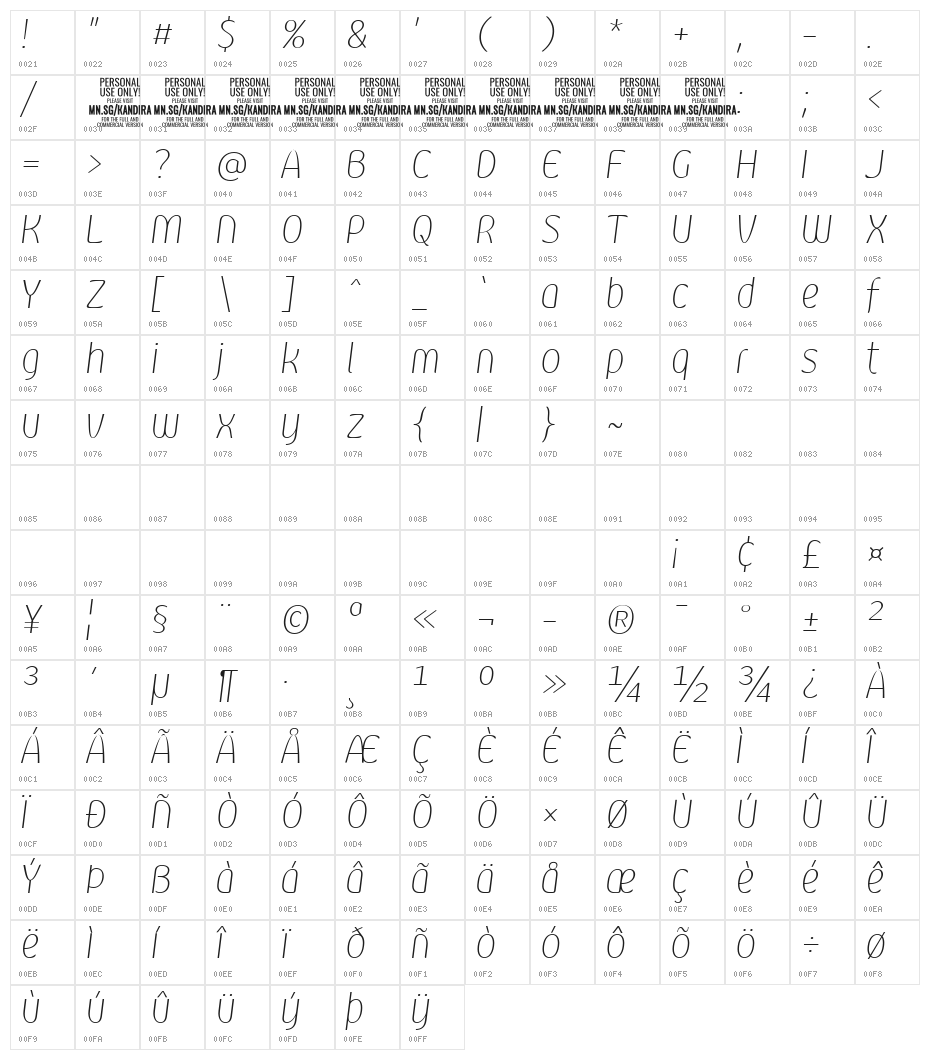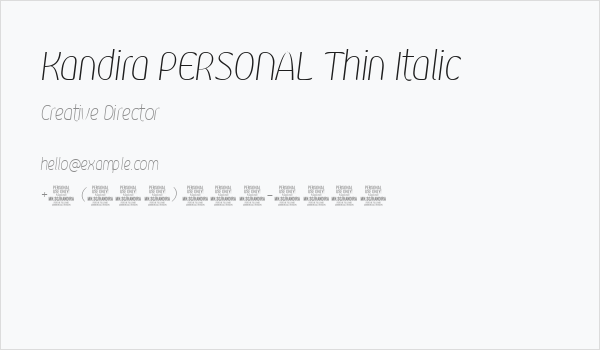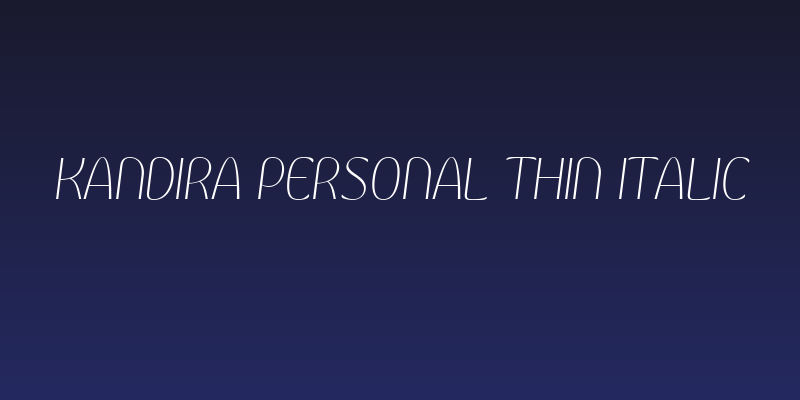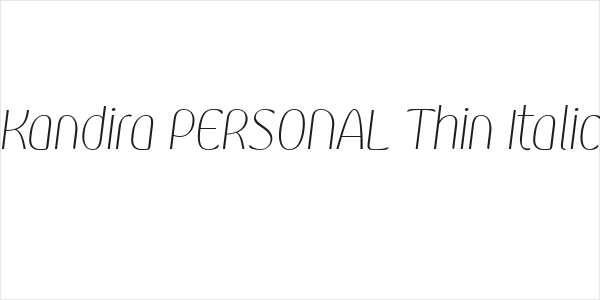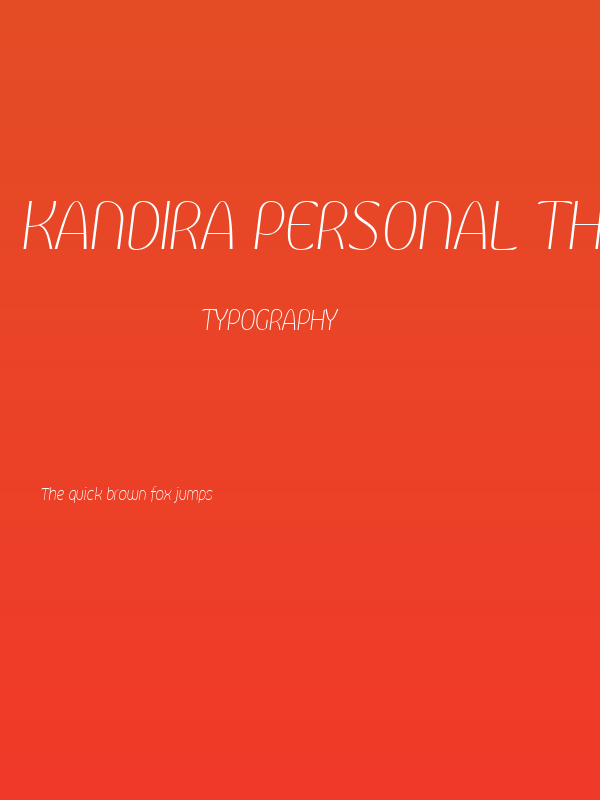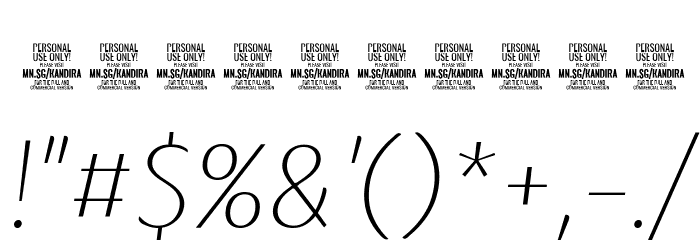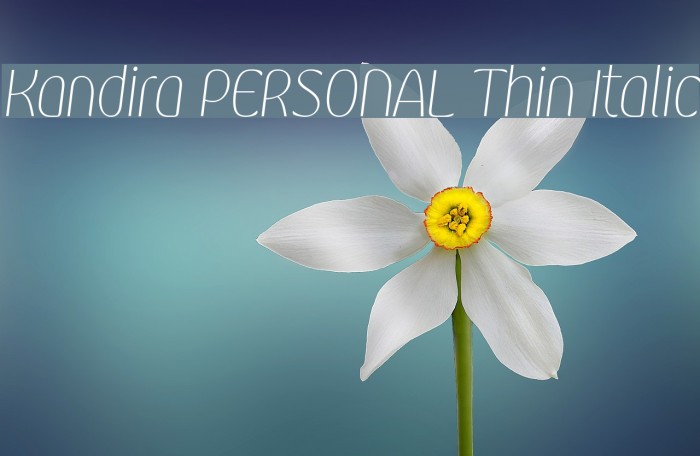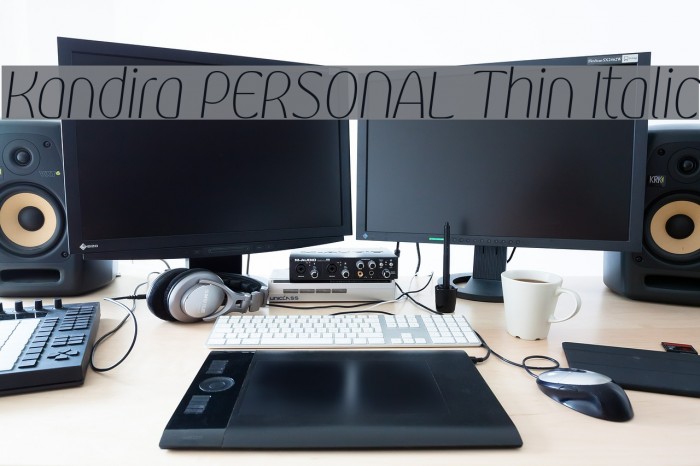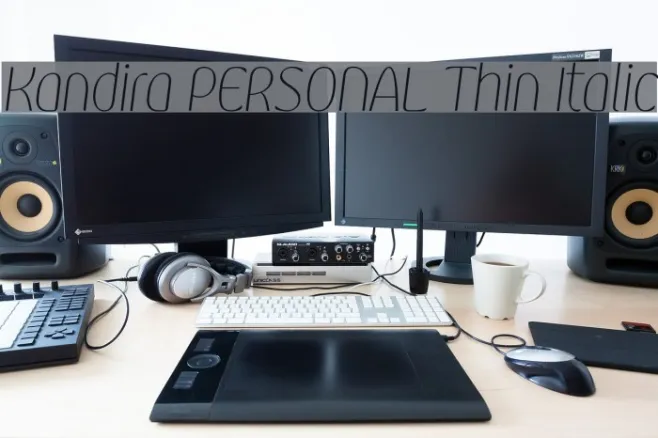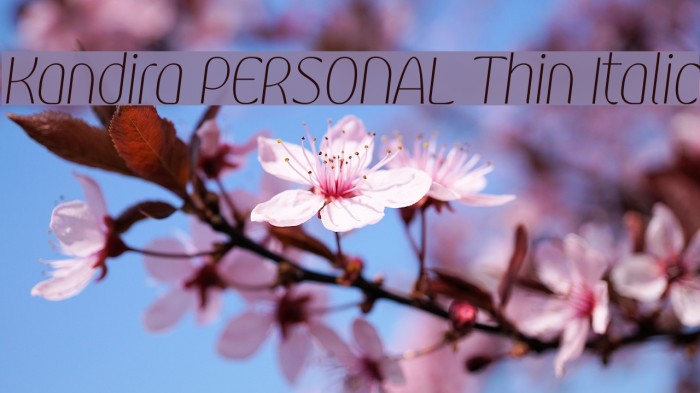
Kandira PERSONAL Thin Italic Font
Kandira PERSONAL Thin Italic Description
This font features a sleek and modern design with a thin, italicized style. The characters are elongated and slightly slanted, giving a sense of elegance and fluidity. The uppercase and lowercase letters maintain a consistent stroke width, contributing to a clean and minimalist appearance. The numerals and special characters are designed to complement the overall aesthetic, ensuring readability and style. This font is ideal for projects that require a contemporary and sophisticated look.
| Use Case | Headlines, Logos, Invitations |
| Proposed Projects | Ideal for fashion magazines, luxury branding, modern websites, and elegant invitations. |